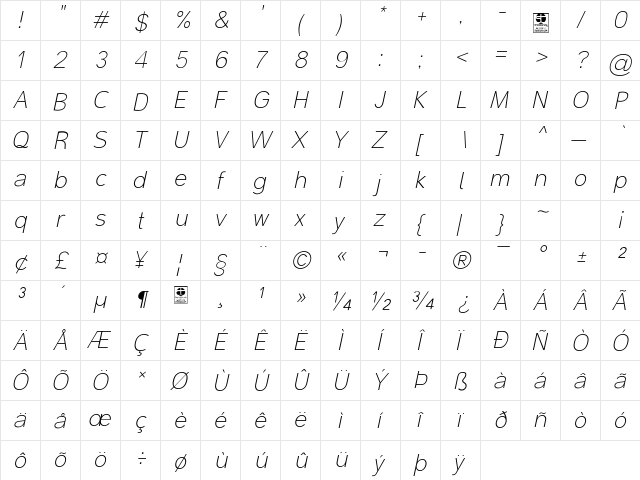
Malter Sans Thin Italic Demo Regular Font Preview
Design Context for Malter Sans Thin Italic Demo Typeface
Malter Sans Thin Italic Demo offers clean, dependable letterforms without strong stylistic allegiance, making it a practical choice for designers who need flexibility. The slanted form adds forward momentum and visual energy. The delicate stroke weight brings airiness and refinement to layouts.
Pro Tip: Try Malter Sans Thin Italic Demo for annotation and caption copy alongside an upright companion — the contrast in angle creates a dynamic but ordered typographic system.